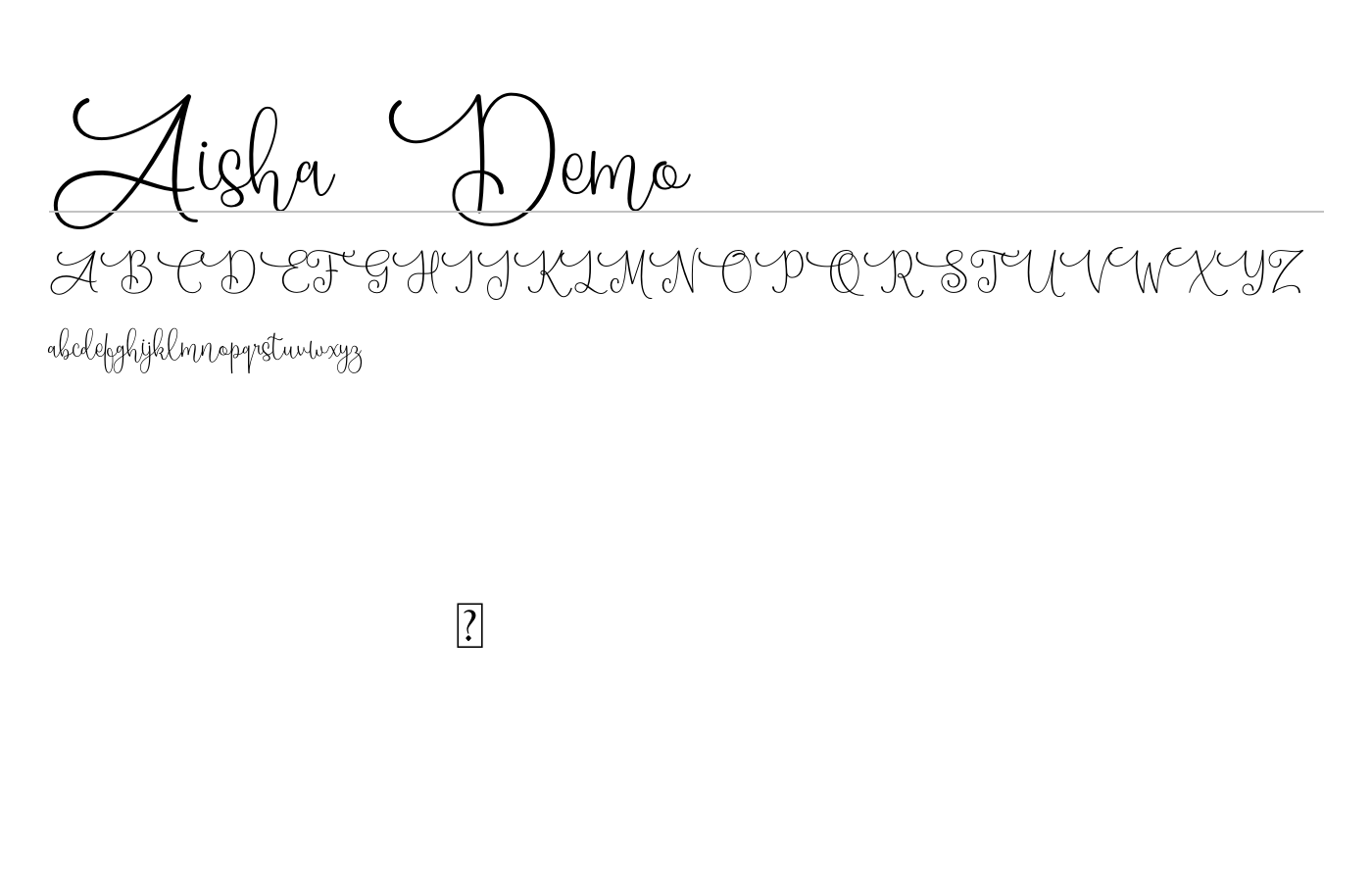
Aisha Demo is an elegant, delicate script font characterized by fine, flowing lines and ornate, curly details in both uppercase and lowercase letters. It conveys a sophisticated and whimsical charm, making it perfect for invitations, branding, or decorative headlines where a graceful, feminine touch is desired. Its light weight and airy design work best in large sizes to highlight its intricate style without compromising readability.
Aisha Demo Font
About Aisha Demo Font
| Font family | Aisha Demo Font |
| Designer | Dicky Safaat Fuad |